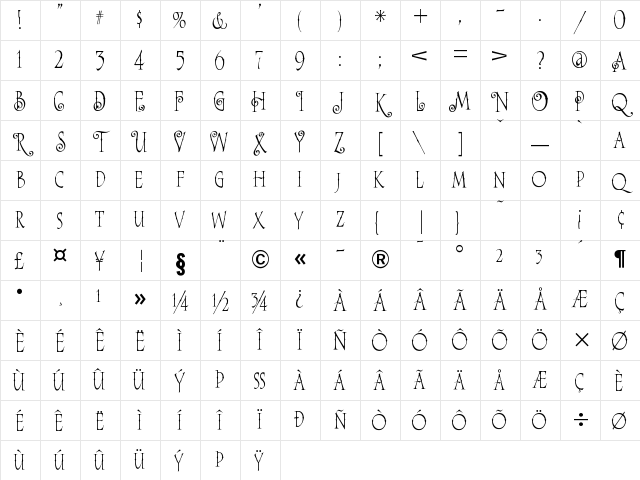
Complete A&S Sarsaparilla Ornamental Regular glyph index. Displaying only characters natively supported by A&S Sarsaparilla Ornamental Regular font.
A&S Sarsaparilla Ornamental is built around its visual character rather than neutral utility - its distinctive forms are designed to make an impression at display sizes.
Font Pairing: Pair with a clean neutral sans-serif for body copy to let A&S Sarsaparilla Ornamental's character lead without overwhelming the composition.
Pro Tip: Use A&S Sarsaparilla Ornamental exclusively at display sizes - it was designed to be seen, not read at length. Let a neutral companion handle body copy.